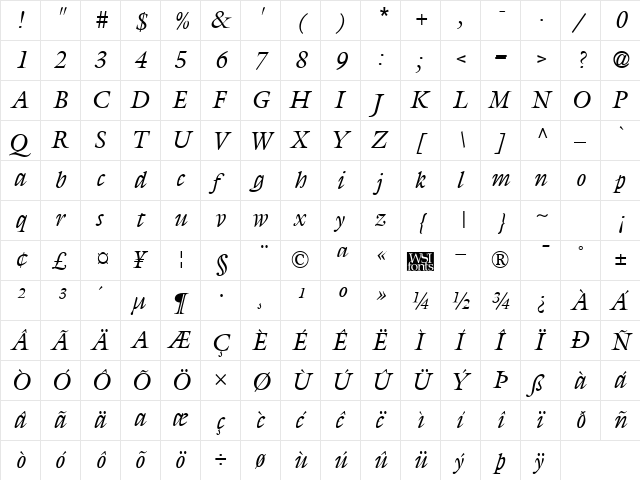
Gilliad Italic Font Preview
Gilliad Italic
Design Context for Gilliad Typeface
Gilliad offers clean, dependable letterforms without strong stylistic allegiance, making it a practical choice for designers who need flexibility. Its italic angle brings a sense of urgency and motion to the letterforms.
Pro Tip: Try Gilliad for annotation and caption copy alongside an upright companion — the contrast in angle creates a dynamic but ordered typographic system.